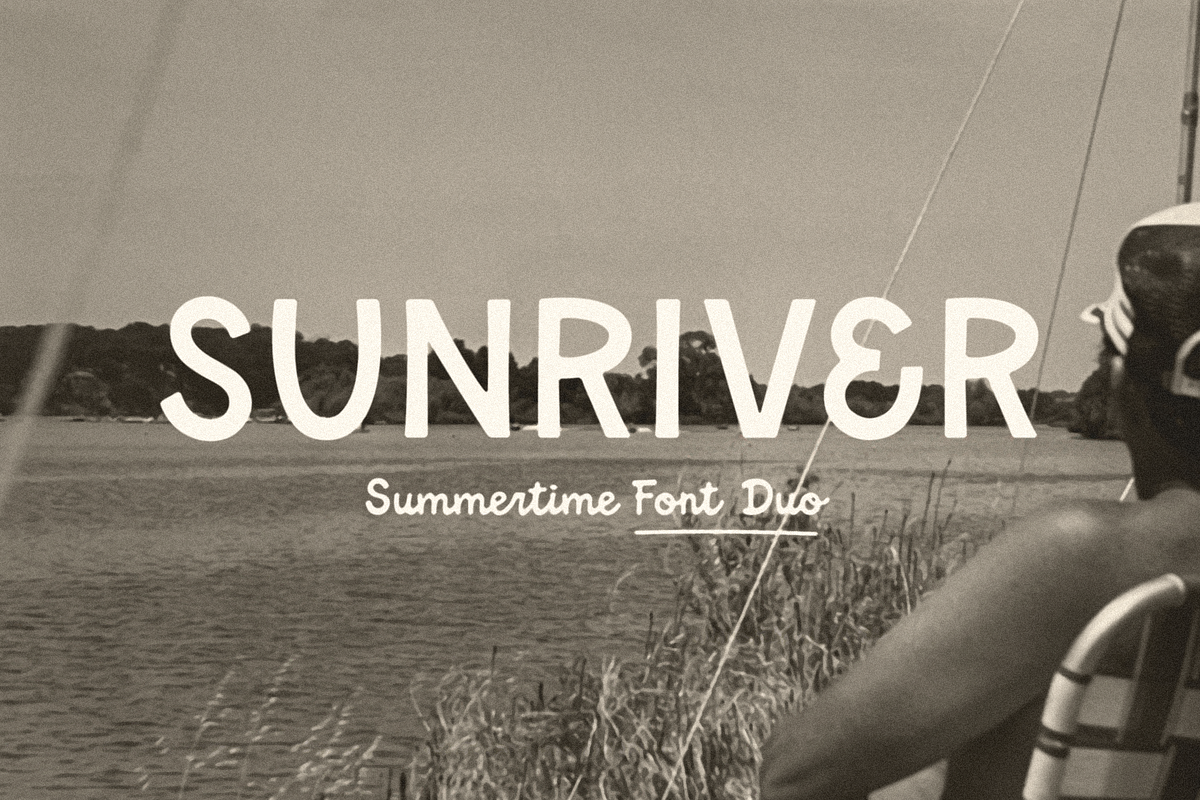
The Sunriver + Floridian Font Free Download is a beautiful and versatile font bundle that combines two distinct styles. The Sunriver font offers a clean, modern feel, while Floridian brings an elegant script touch, making this bundle perfect for a variety of creative projects, from logos and invitations to branding and social media content. Please note, for commercial use, a license must be purchased. You can download it for free for testing purposes.
With its stylish and complementary fonts, the Sunriver + Floridian Font Free Download is ideal for creating sophisticated, modern designs that need both clean structure and a touch of elegance. Whether you’re designing for fashion, weddings, or digital content, this font bundle provides the perfect balance between boldness and elegance.